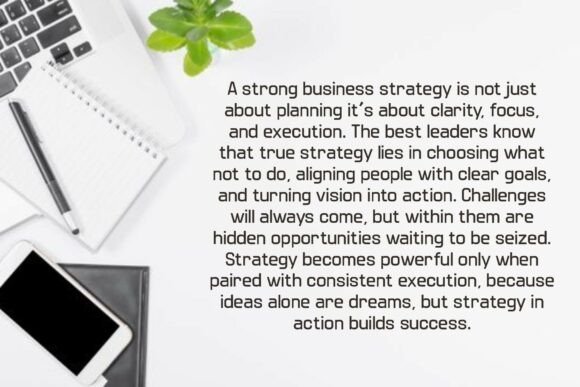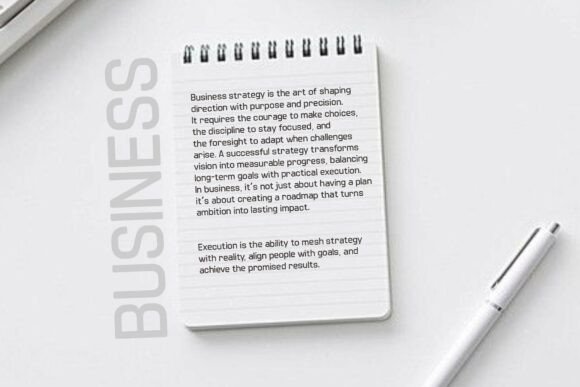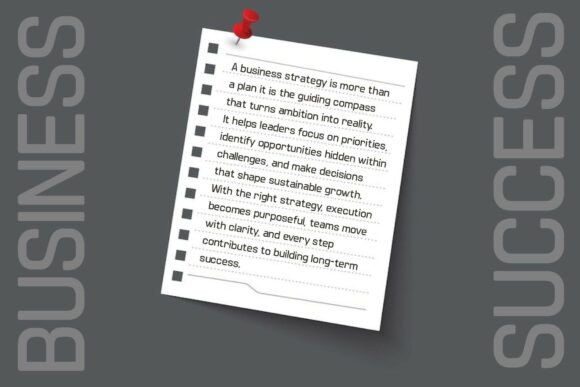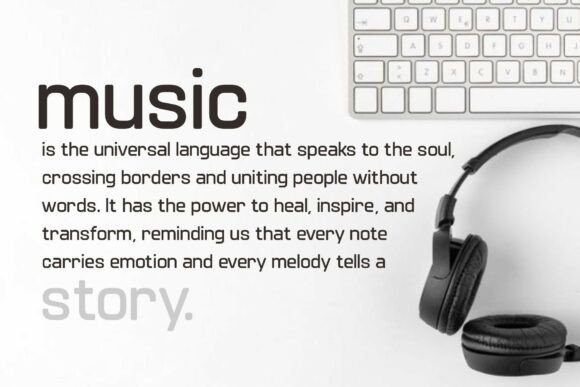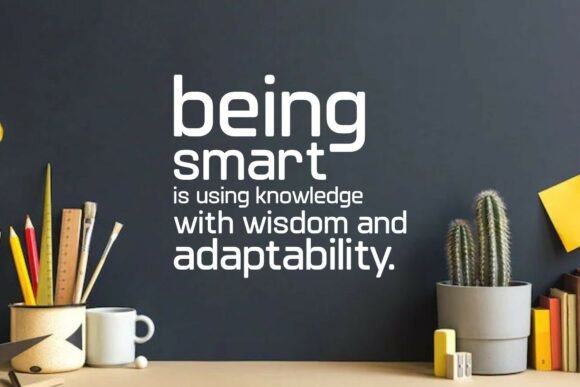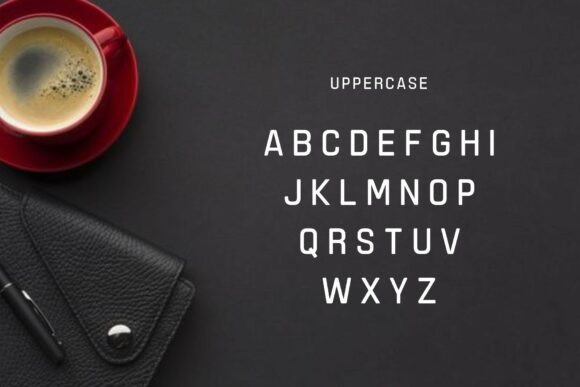
The Perfect Font for the Modern Designer
Remember the moment when you finally nailed the design for your client’s logo? The feeling of accomplishment and pride that comes with it is unbeatable. But what makes a design truly shine is the right choice of font. For designers, the perfect font can be the difference between a good design and a great one. This is where the Athena Font comes in – a modern sans-serif font designed to convey professionalism, elegance, and a touch of contemporary style.
As a designer, you know the importance of choosing a font that’s both versatile and trustworthy. The Athena Font delivers on both fronts, making it an excellent choice for corporate branding, business presentations, and editorial layouts. Its clarity and minimalist appearance ensure that your design stands out in a crowded market.
Athena Font Key Features
- Font Family: Athena is a sans-serif font family.
- Character Set: Supports a wide range of languages, including Latin, Greek, and Cyrillic scripts.
- Size and Resolution: Available in various font sizes, with a resolution of 300 DPI (dots per inch) or higher.
- Unique Characteristics: Features a clean and modern design with a distinctive x-height, making it suitable for body text and headlines.
- Font Weight: Available in multiple weights, including light, regular, bold, and black, allowing for flexibility in design applications.
Athena Font Review
As a designer, I was excited to try out the Athena Font, and overall, I have mixed feelings about it.
- The font is highly legible, even at small sizes, making it perfect for body text.
- Athena Font has a classic, timeless look that will never go out of style.
- It’s highly versatile and can be used for both digital and print media.
- The font has a wide range of weights and styles, giving designers plenty of options to choose from.
- The font’s rounded edges can make it look a bit too soft or childlike for some designs.
- It may not be the best choice for highly technical or scientific content, as the font’s curves can make it harder to read.
- The font’s width can vary slightly between weights, which can affect the overall rhythm of the text.
Athena Font is a solid choice for designers who want a classic, legible font that can be used in a variety of contexts. While it may not be perfect for every project, it’s definitely worth considering. With a little creativity and experimentation, designers can make the most of this versatile font.
Getting the Most Out of Athena Font
To get the most out of Athena font, use it in combination with other design elements, such as images and shapes, to create a visually appealing design. Experiment with different font sizes, colors, and styles to find the perfect balance for your design.
Athena font is commonly used for:
- Body text for articles and blogs
- Logo design and branding
- Marketing materials and advertisements
Alternatives to Athena Font
1. Arial Font
Arial is a sans-serif font that is widely used in digital media. It is clear and readable, making it suitable for body text and headings. Use Arial when you need a clean and modern font that is easy to read on screens.
Comparison to Athena Font: While both fonts are sans-serif, Arial is more modern and clean, whereas Athena Font has a more classic and elegant feel.
2. Helvetica Font
Helvetica is a classic sans-serif font that is highly legible and versatile. It is suitable for a wide range of applications, from body text to headings and logos. Use Helvetica when you need a font that is both modern and timeless.
Comparison to Athena Font: Helvetica is more geometric and modern, whereas Athena Font has a more rounded and elegant feel.
Lato is a sans-serif font that is highly legible and modern. It is suitable for body text and headings, and its clean design makes it perfect for digital media. Use Lato when you need a font that is both clean and modern.